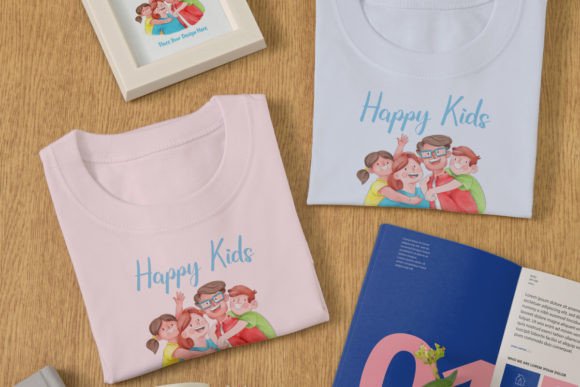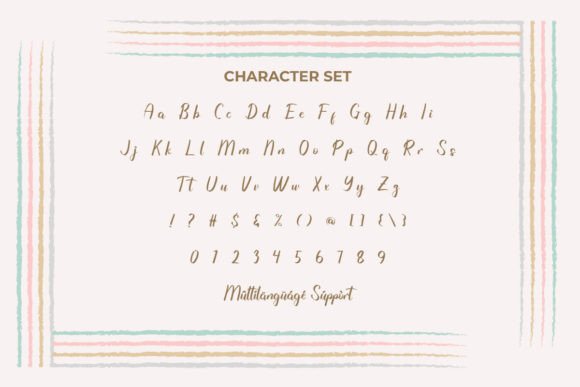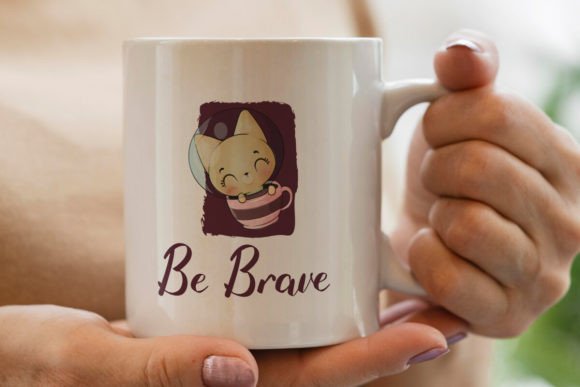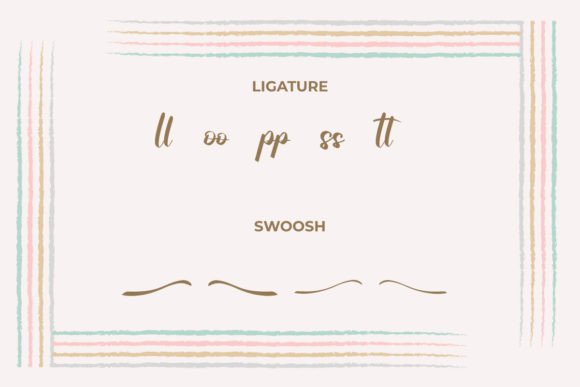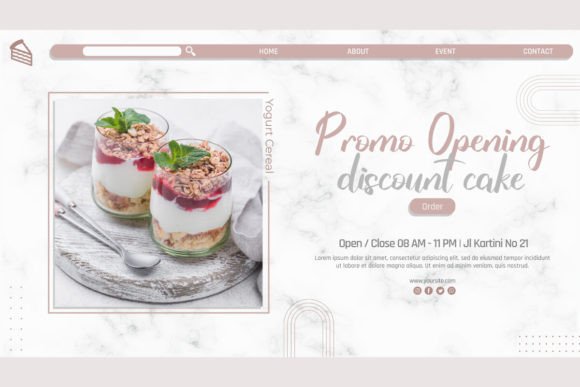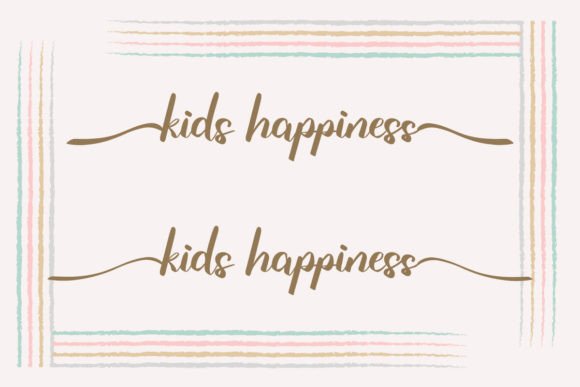
Introduction to Kids Happiness Font
Kids Happiness Font is a beautiful calligraphy script font.
This font is made up of bold lines that connect beautifully and still easy to read This font has soft appearance making it suitable for many industries, such as café, event or wedding organizer, fashion, florist, homeware, kids stuff, printing, publishing, restaurant, and more.
Key Features of Kids Happiness Font